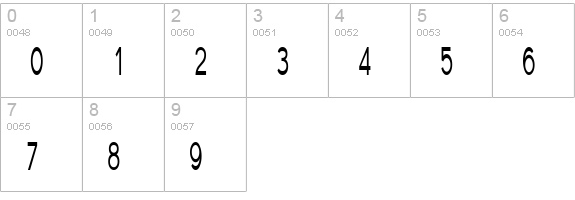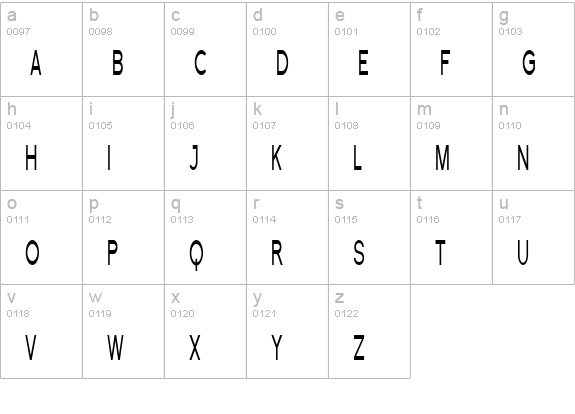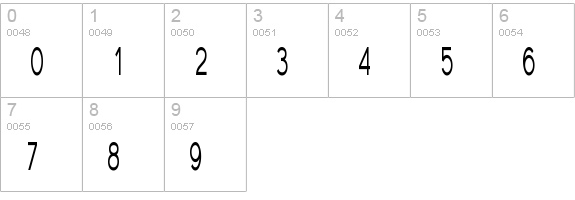
Florencesans SC Comp font is a modern and elegant typeface that exudes sophistication and style. With its clean lines and unique design, this sans-serif font is perfect for adding a touch of class to any project. Whether you're designing a website, creating a logo, or working on a print project, Florencesans SC Comp font will elevate your work to the next level. The best part? Florencesans SC Comp font is completely free to download at FontsMarket.com. This means you can access this premium font without having to spend a dime. Don't miss out on the opportunity to enhance your designs with this beautiful and versatile typeface. Download Florencesans SC Comp font today and take your creations to new heights!